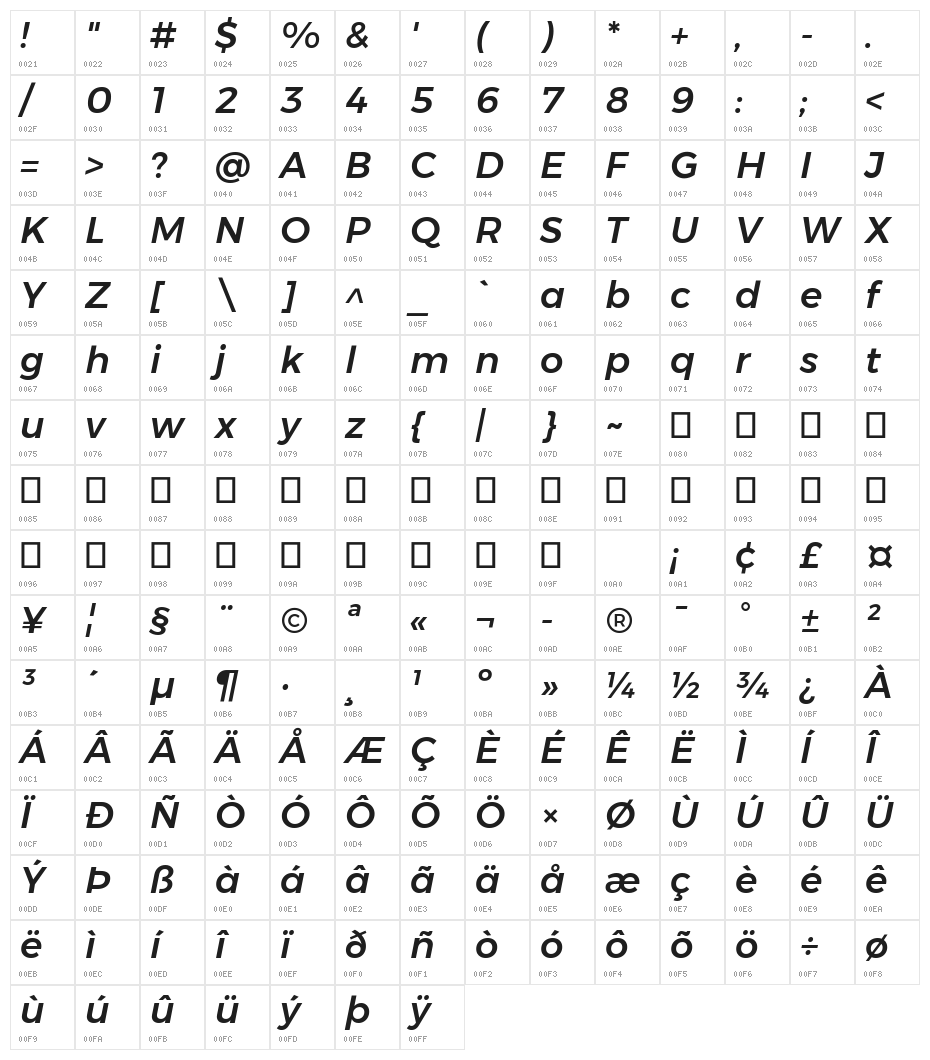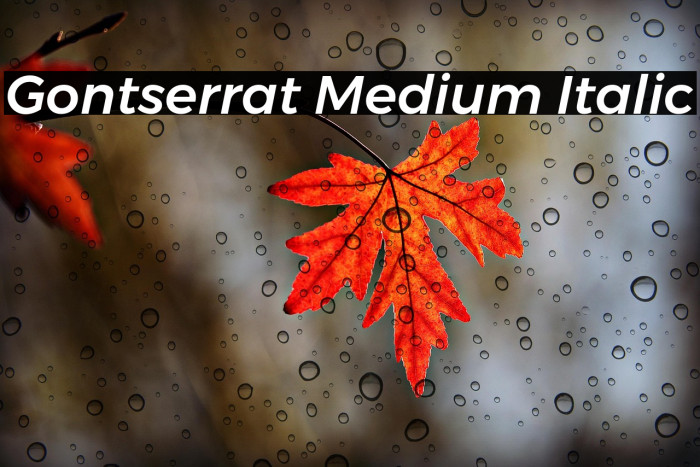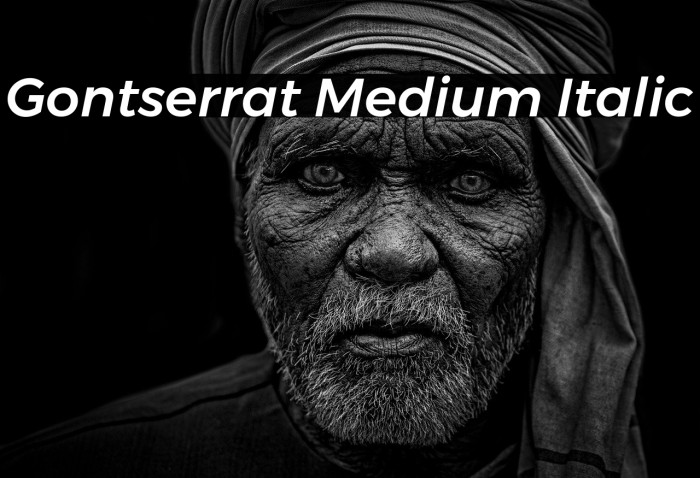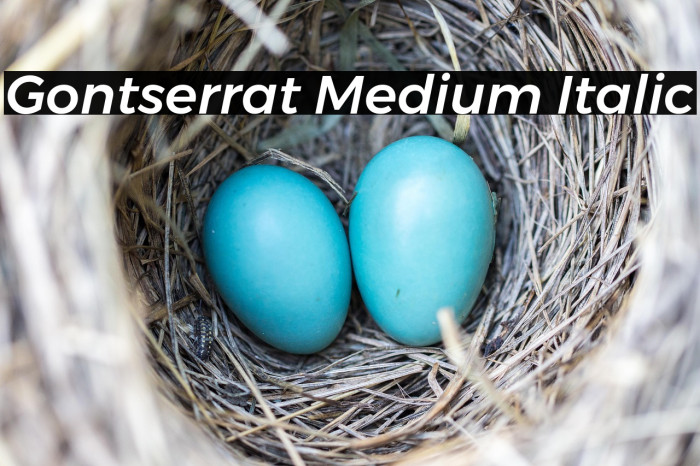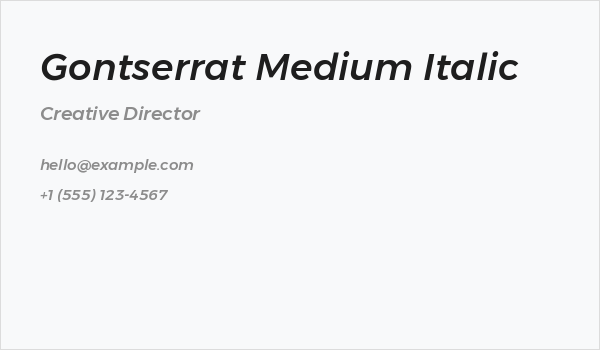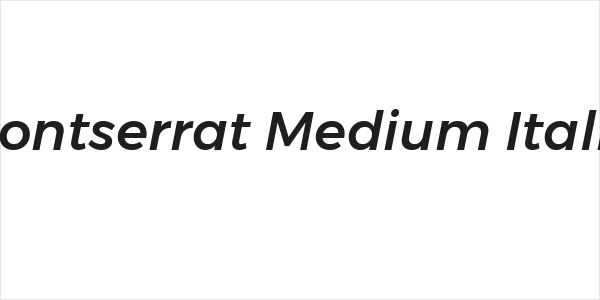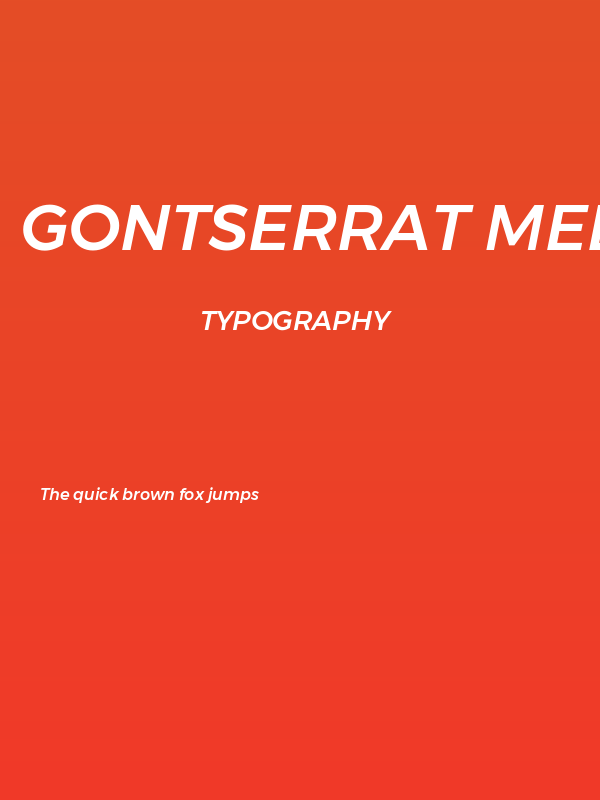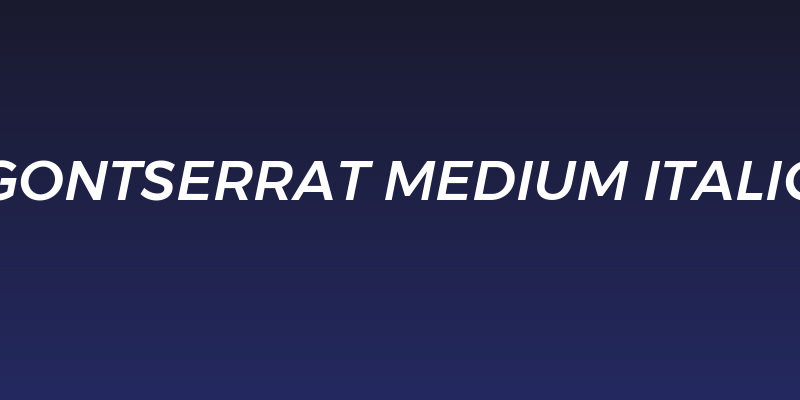
Gontserrat Medium Italic Font
Gontserrat Medium Italic Description
This typeface features a sleek, modern design with a subtle italic slant, providing a dynamic and elegant appearance. The characters are well-proportioned with a consistent medium weight, offering a balanced look that is both professional and approachable. The sans-serif style ensures clean lines and a contemporary feel, making it versatile for various design applications. The font maintains a normal width, allowing for easy readability, while the character spacing is slightly tight, enhancing its compact and efficient use of space. The contrast in stroke thickness is low, contributing to its smooth and uniform appearance across all characters.